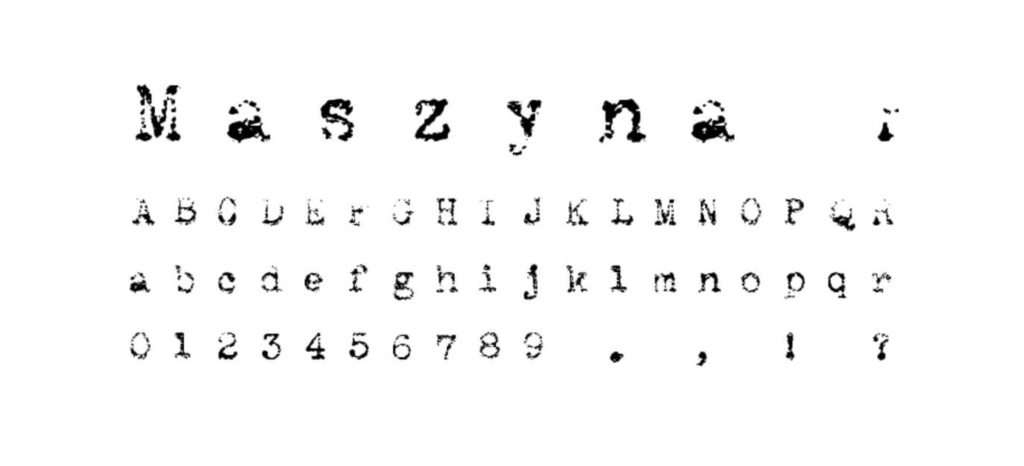
Maszyna Royal Light Regular Font is an amazing decorative font that was designed by Barmee. This TrueType font includes 116 glyphs and 1000 units of this font are equal to 1 em.
Maszyna comes with a unique splendid and its own new texture. It is perfect for making prints, wedding cards, invitation cards, composing a comic book, or for making a logo design.